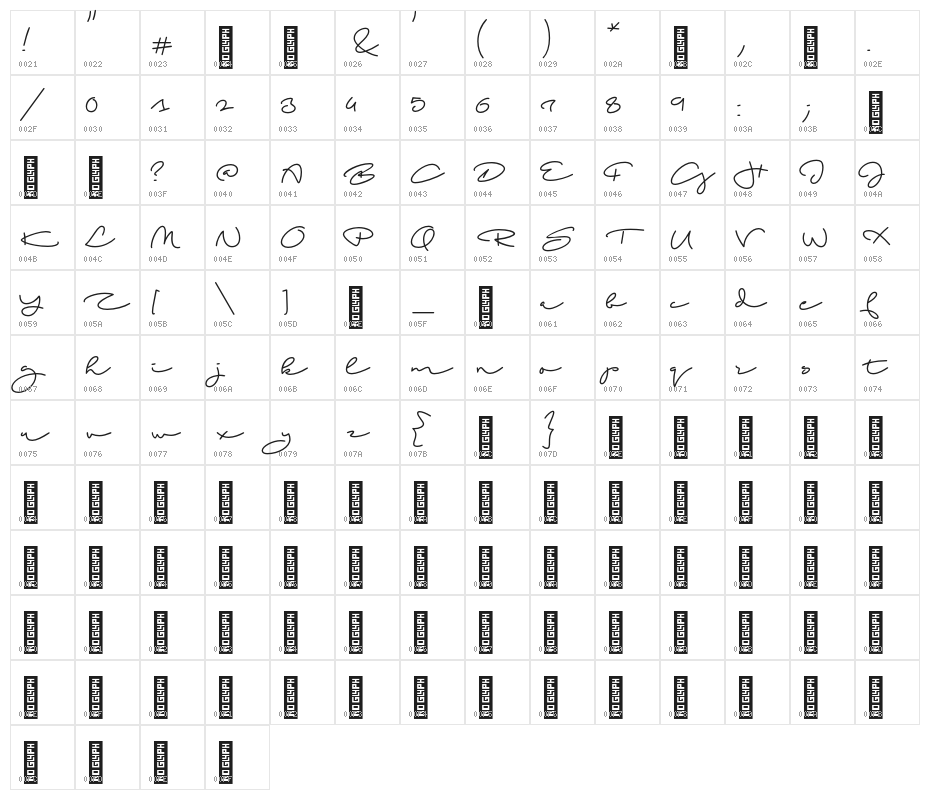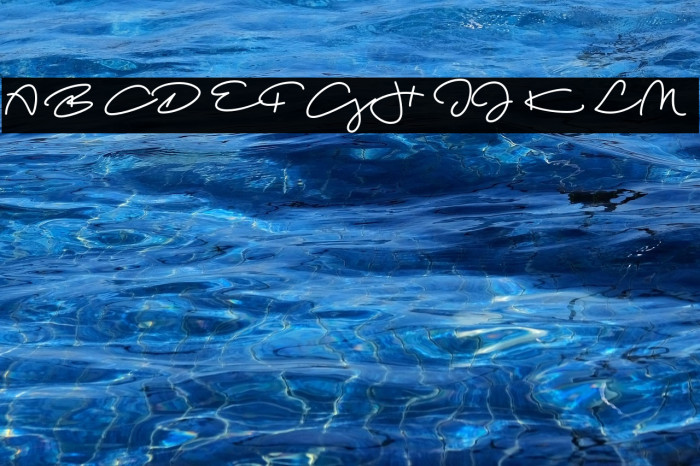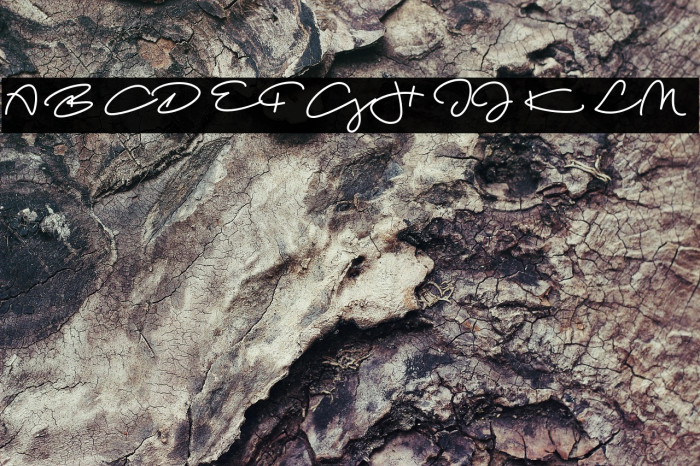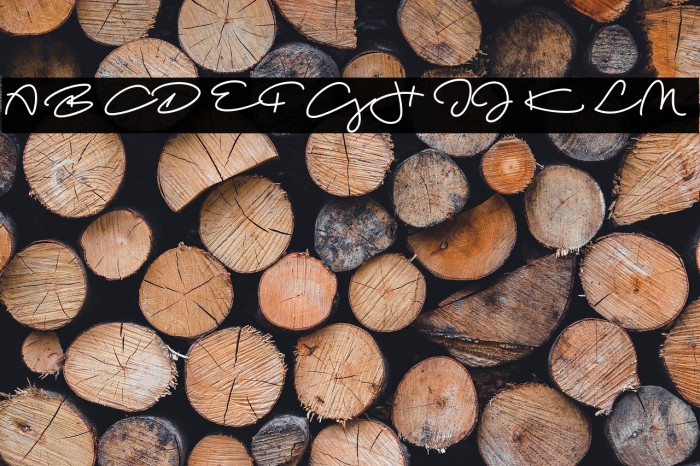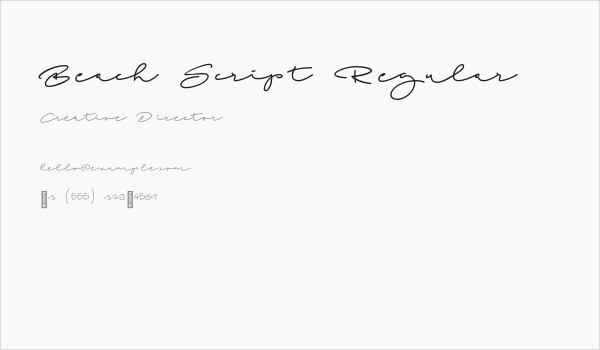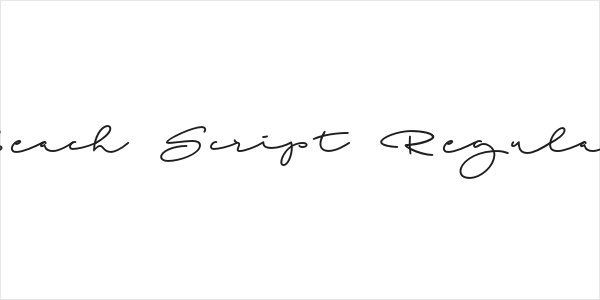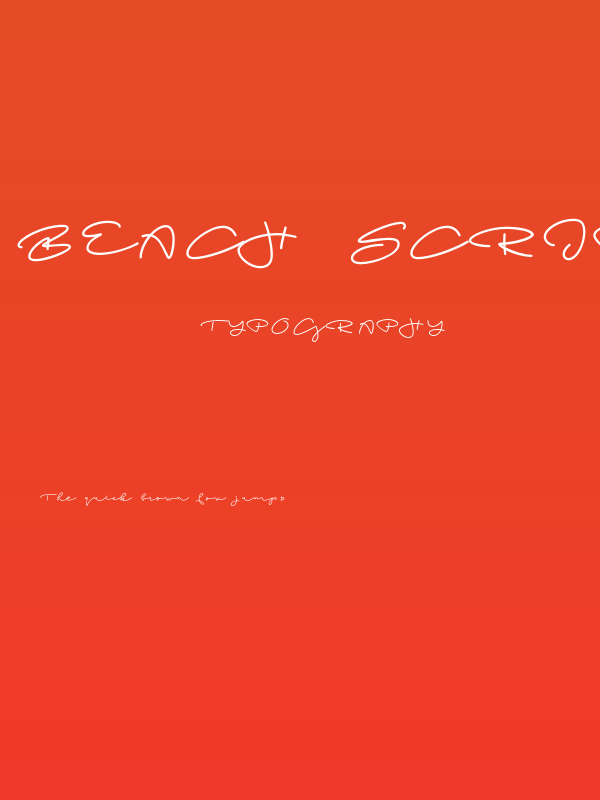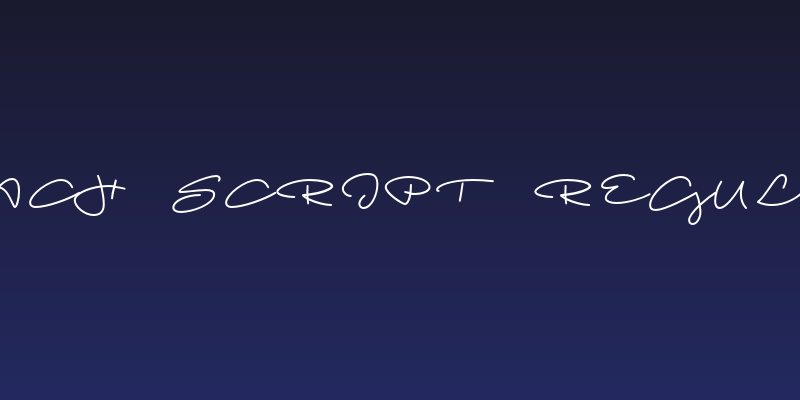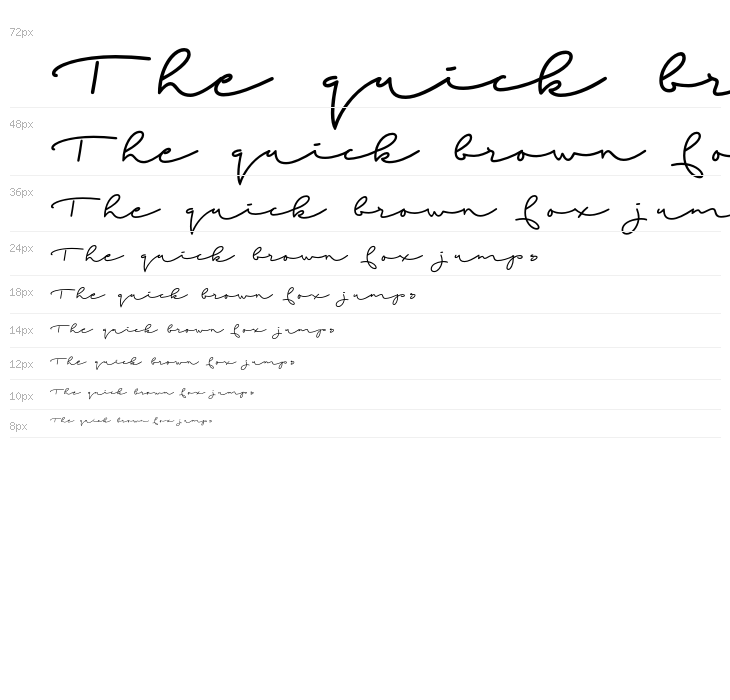
Beach Script Regular Font
Beach Script Regular Description
This font features a fluid and elegant script style, characterized by its smooth, flowing lines and cursive letterforms. The uppercase letters are distinct with a slight slant, while the lowercase letters exhibit a graceful loop and curve, enhancing its handwritten appeal. The numerals maintain the same fluidity, ensuring consistency across all characters. Special characters are integrated seamlessly, maintaining the overall aesthetic. This font exudes a casual yet sophisticated vibe, making it ideal for projects that require a personal touch.
| Overall Style | Elegant, Handwritten |
| Use Case | Logos, Invitations, Personal Branding |
| Proposed Projects | Ideal for wedding invitations, greeting cards, personal branding, and elegant packaging designs. |